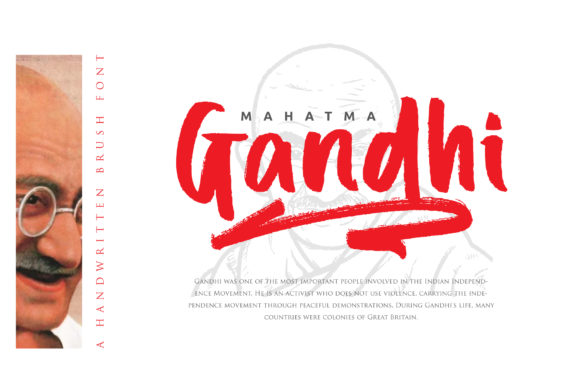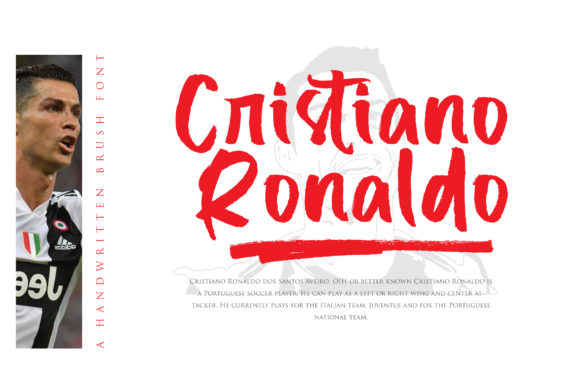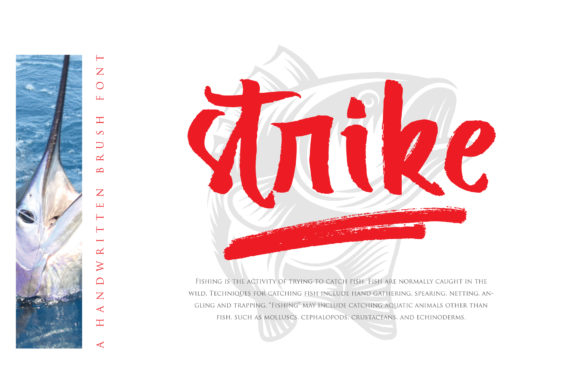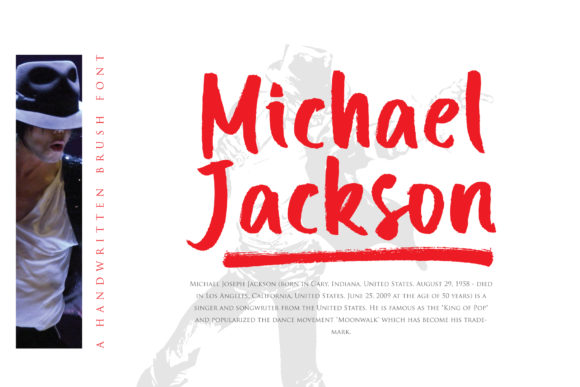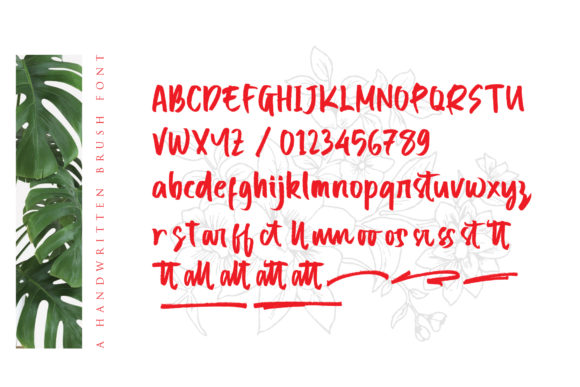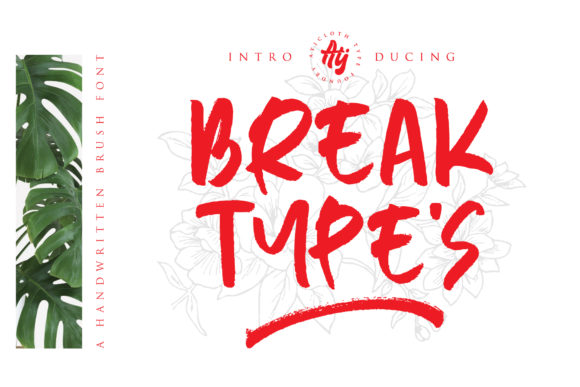
Introducing Break Types Font: A Unique Textured Brush Font
Are you tired of using the same old fonts for your design projects? Look no further than Break Types Font, a textured brush font that adds a touch of handmade charm to any design. With its contemporary look and irregular baseline, this font is perfect for designers and crafters looking to add a personal touch to their work.
What is Break Types Font?
Break Types Font is a unique and versatile font that features a textured brush style. Unlike traditional fonts, Break Types has a handmade feel that gives it a distinct character. The font’s irregular baseline adds to its charm, giving it a organic and natural look that’s perfect for a variety of design projects.
Features of Break Types Font
- Textured Brush Style: Break Types Font features a textured brush style that gives it a unique and handmade look.
- Contemporary Look: Despite its handmade feel, Break Types Font has a contemporary look that’s perfect for modern design projects.
- Irregular Baseline: The font’s irregular baseline adds to its charm, giving it a organic and natural look.
- Handwritten Feel: Break Types Font has a handwritten feel that’s perfect for creating personal and unique designs.
Uses for Break Types Font
Break Types Font is a versatile font that can be used for a variety of design projects. Here are some ideas to get you started:
- Logos: Use Break Types Font to create a unique and memorable logo for your business or brand.
- Stationary Art: Add a personal touch to your stationary art with Break Types Font.
- Social Media Posts: Use Break Types Font to create eye-catching social media posts that stand out from the crowd.
- Greeting Cards: Create cute and personalized greeting cards with Break Types Font.
Why Choose Break Types Font?
There are many fonts available for designers and crafters, but Break Types Font stands out from the rest. Here are some reasons why:
- Unique Look: Break Types Font has a unique and handmade look that’s hard to find in other fonts.
- Versatility: This font can be used for a variety of design projects, from logos to social media posts.
- High-Quality: This font is high-quality and can be used for professional design projects.
Tips for Using Break Types Font
Here are some tips for using Break Types Font:
- Experiment with Colors: Break Types Font looks great in a variety of colors, so don’t be afraid to experiment.
- Use it with Other Fonts: This font pairs well with other fonts, so try using it with a sans-serif font for a unique look.
- Pay Attention to Spacing: Make sure to pay attention to spacing when using Break Types Font, as it can be a bit irregular.
| Font Name | Break Types Font |
| Author | Atjcloth Studio |
Break Types Font is a unique and versatile font that’s perfect for designers and crafters looking to add a personal touch to their work. With its textured brush style, contemporary look, and handmade feel, this font is sure to stand out from the rest. Whether you’re creating logos, stationary art, social media posts, or greeting cards, Break Types Font is a great choice.